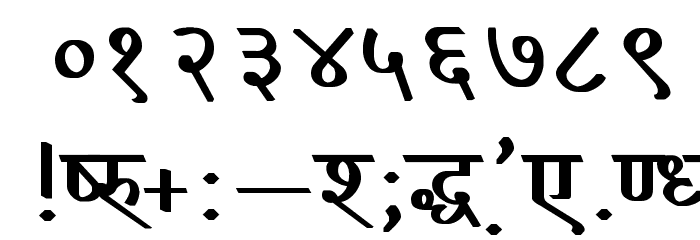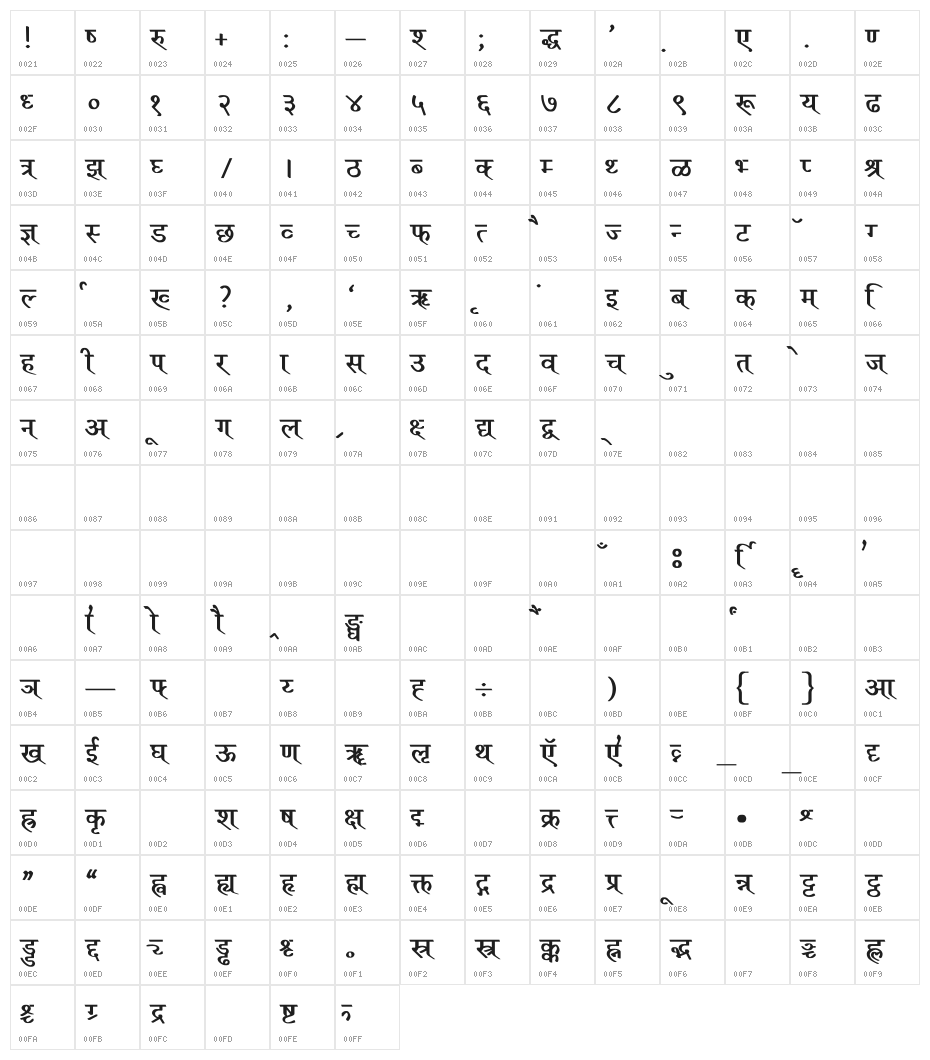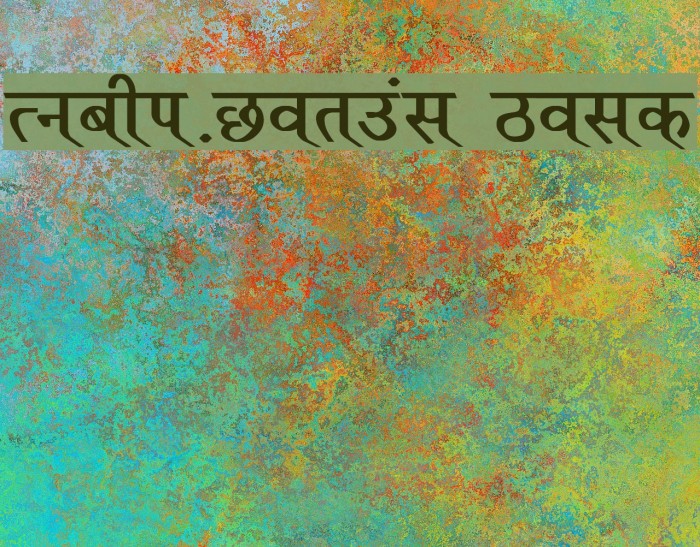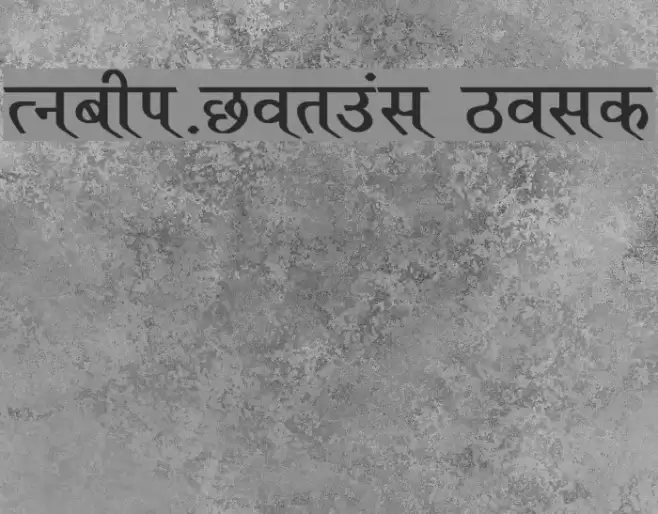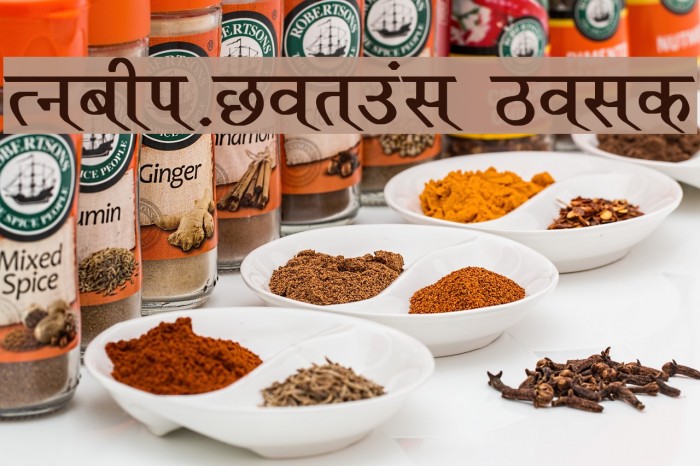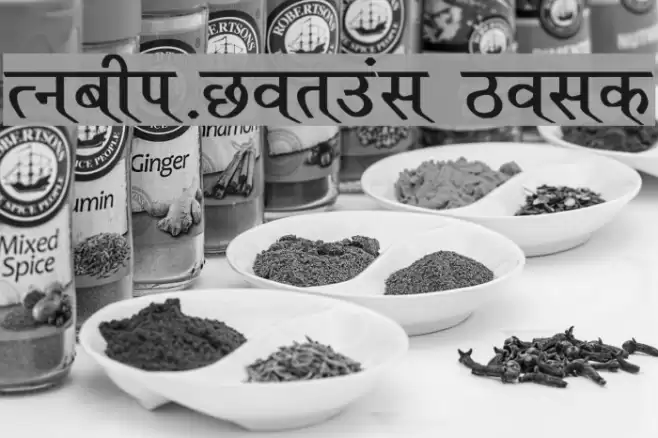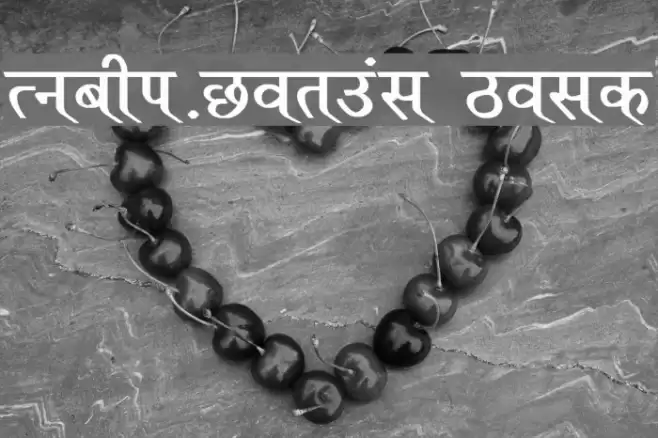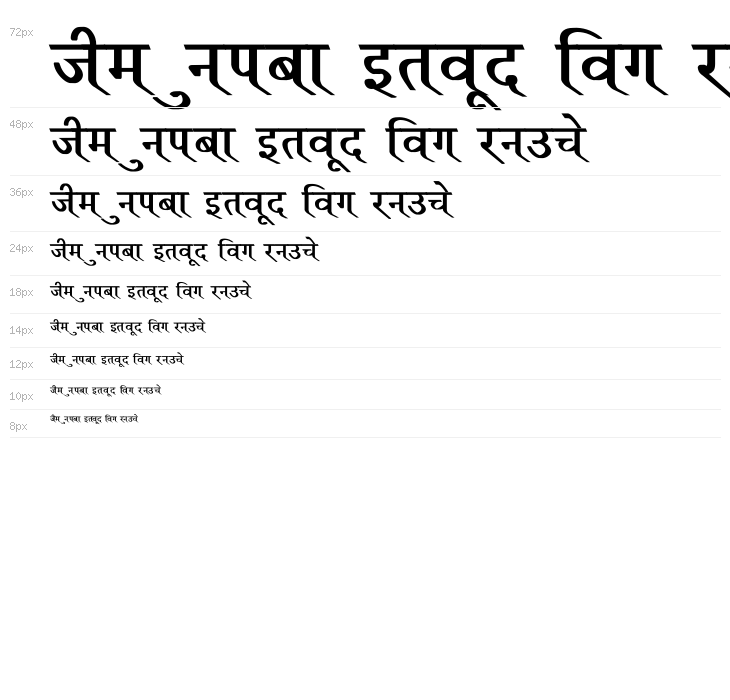
Ruchi-Normal Bold Font
Ruchi-Normal Bold Description
This font features a bold and structured design with distinct, angular strokes that convey a sense of strength and clarity. The characters are well-defined with a consistent stroke width, making them highly legible. The script is characterized by its traditional style, often used in formal or official documents. The numerals are clear and easy to read, and the special characters are designed to complement the overall aesthetic. The font maintains a balance between decorative elements and readability, making it suitable for various applications.
| Overall Style | Traditional |
| Use Case | Headlines, Formal documents, Signage |
| Proposed Projects | Ideal for formal documents, signage, educational materials, and branding that requires a traditional yet bold appearance. |